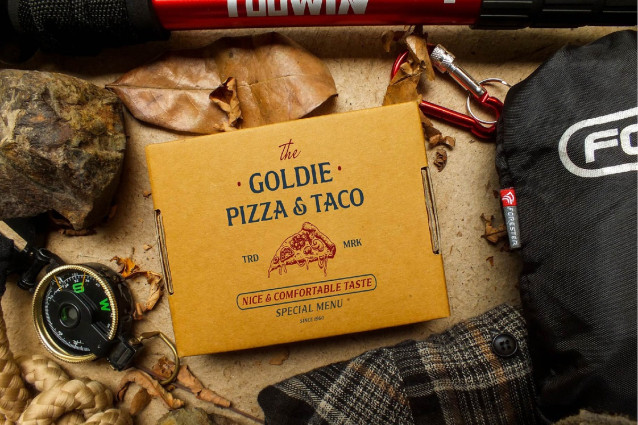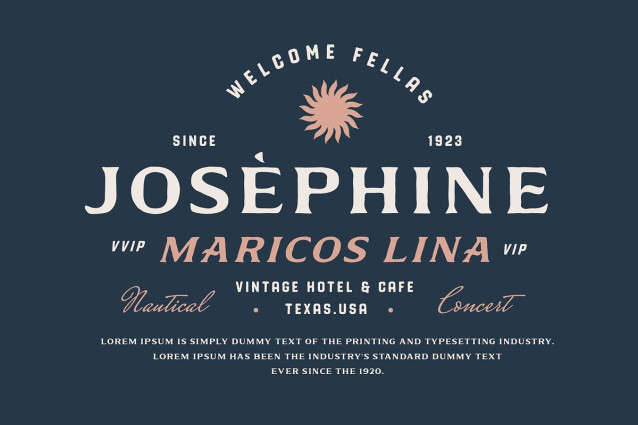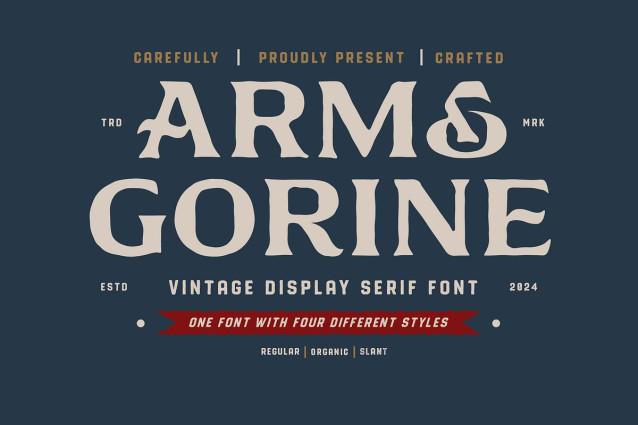
Arm And Gorine Font
Arm And Gorine Font is a vintage display serif with a natural, organic feel. Designed to bring classic elegance and authentic personality to your creative projects, this typeface is perfect for sophisticated branding, striking logos, editorial headlines, and social media graphics that need a touch of timeless charm.
The Regular style delivers clean vintage-inspired letterforms, while the Organic style adds a handcrafted, earthy twist. For a dynamic and more expressive option, the Slant style introduces subtle movement to your typography, giving your words a sense of flow and energy.
From retro posters to refined packaging and stylish social media posts, Arm & Gorine is made for creators who want their designs to stand out with a natural yet classic edge.